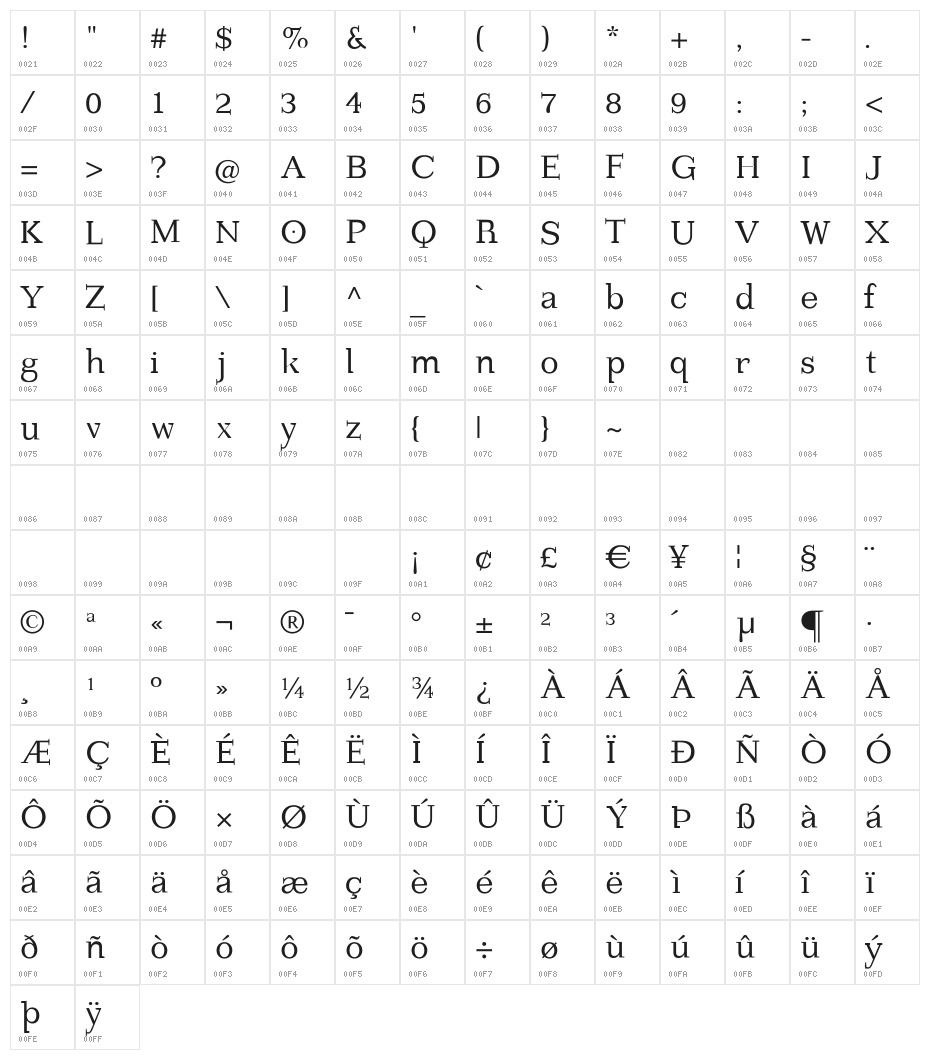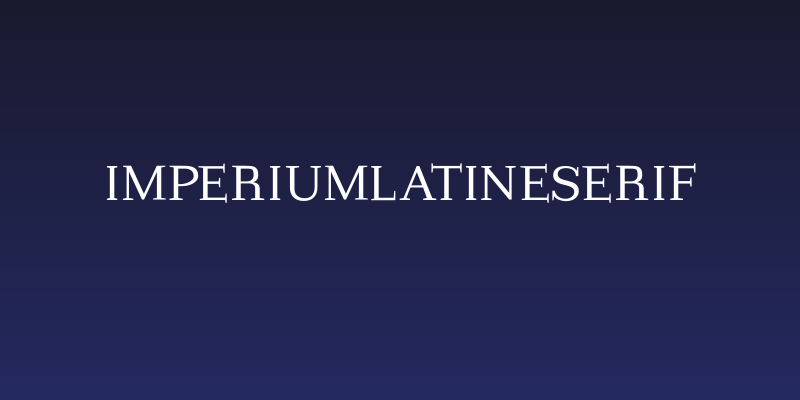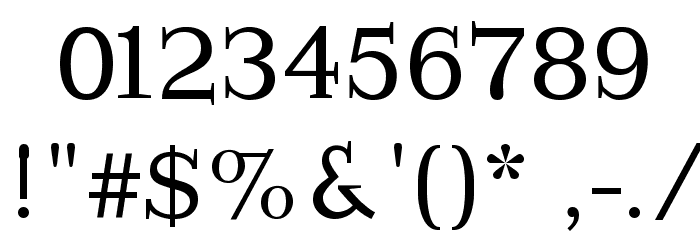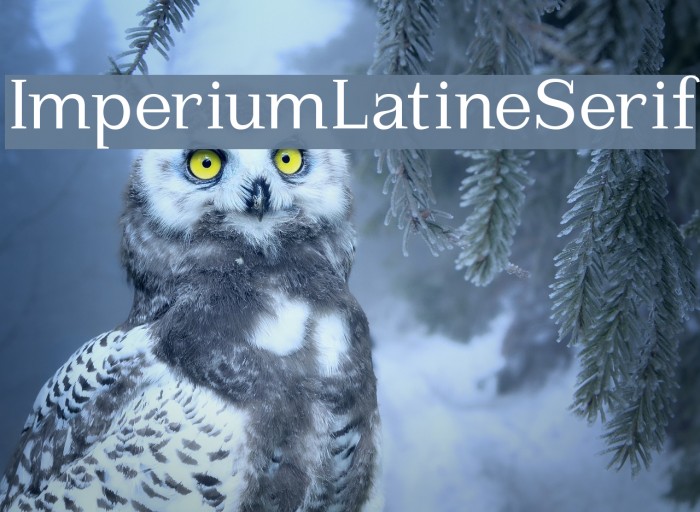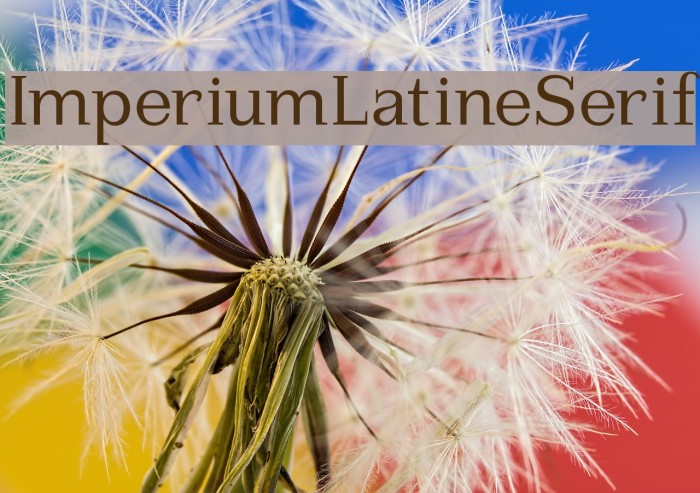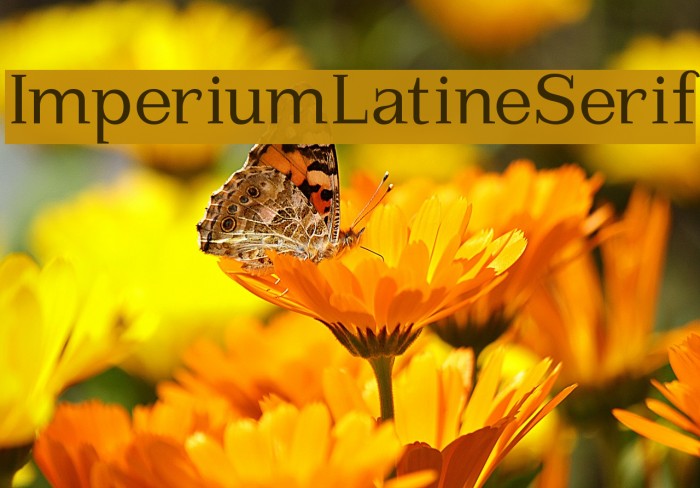
ImperiumLatineSerif Font
ImperiumLatineSerif Description
This font exudes a classic elegance with its refined serif design. The characters are well-proportioned, featuring distinct serifs that add a touch of sophistication. The uppercase letters are bold and commanding, while the lowercase letters maintain a graceful flow. The numerals are clear and balanced, making them easily readable. Special characters are thoughtfully designed, complementing the overall aesthetic. This font is ideal for projects that require a traditional yet stylish appearance.
| Overall Style | Classic |
| Use Case | Headlines, Body text, Logos |
| Proposed Projects | Ideal for book covers, formal invitations, branding, and editorial design. |